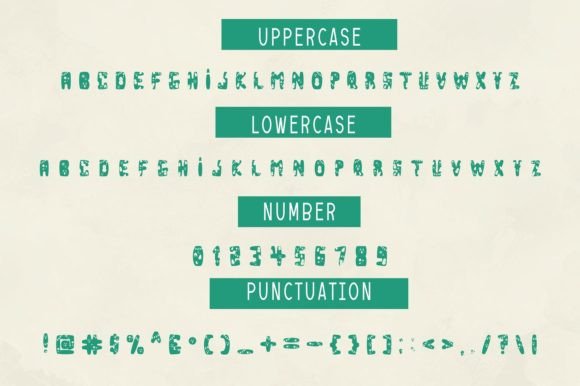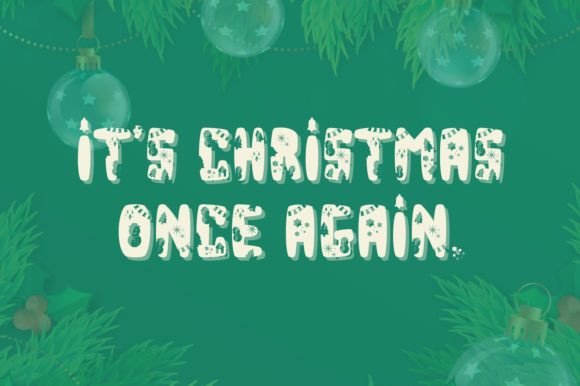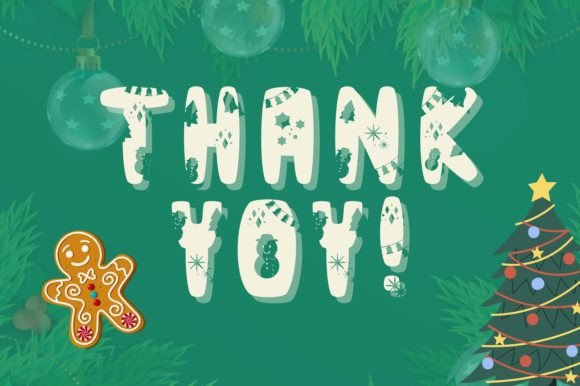
Happy Christmas Font: The Perfect Addition to Your Holiday Designs
Are you looking for a festive and fun font to add to your holiday designs? Look no further than the Happy Christmas Font! This cute Christmas-themed decorative font is the perfect choice for all your favorite projects, embodying playfulness and authenticity. In this article, we’ll dive into the features and benefits of the Happy Christmas Font, and explore how you can use it to take your designs to the next level.
What is Happy Christmas Font?
Happy Christmas Font is a specially designed font that captures the spirit of the holiday season. With its playful and whimsical design, it’s perfect for adding a touch of festive fun to any project. Whether you’re a designer, crafter, or DIY enthusiast, this font is sure to bring a smile to your face and get you in the holiday mood.
Key Features of Happy Christmas Font
• Playful and Authentic Design: The Happy Christmas Font features a unique and playful design that’s sure to stand out. Its authentic look and feel make it perfect for creating holiday-themed designs that are both fun and festive.
• Versatile: The Happy Christmas Font is versatile and can be used for a wide range of projects, from holiday cards and invitations to DIY crafts and decorations.
• Adds a Touch of Festive Fun: The Happy Christmas Font adds a touch of festive fun to any project, making it perfect for holiday-themed designs.
• Increases Engagement: The playful and whimsical design of this font is sure to grab attention and increase engagement with your audience.
• Easy to Read: Despite its playful design, the Happy Christmas Font is easy to read, making it perfect for use in titles, headings, and body text.
Project Ideas Using Happy Christmas Font
The Happy Christmas Font is perfect for a wide range of holiday projects, including:
• Holiday Cards and Invitations: Add a touch of festive fun to your holiday cards and invitations with this playful font.
• DIY Crafts and Decorations: Use the Happy Christmas Font to add a personal touch to your DIY crafts and decorations, such as holiday gift tags and banners.
• Social Media Graphics: Create eye-catching social media graphics using the Happy Christmas Font, perfect for sharing with friends and family during the holiday season.
• Website and Blog Decorations: Add a touch of festive fun to your website or blog with the Happy Christmas Font, perfect for holiday-themed posts and decorations.
Font Name Happy Christmas Font
Author Brown Cupple Fonts
The Happy Christmas Font is a must-have for any designer, crafter, or DIY enthusiast looking to add a touch of festive fun to their holiday designs. With its playful and authentic design, ease of use, and versatility, this font is perfect for a wide range of projects. So why wait? Download the Happy Christmas Font today and start creating your own festive and fun holiday designs!